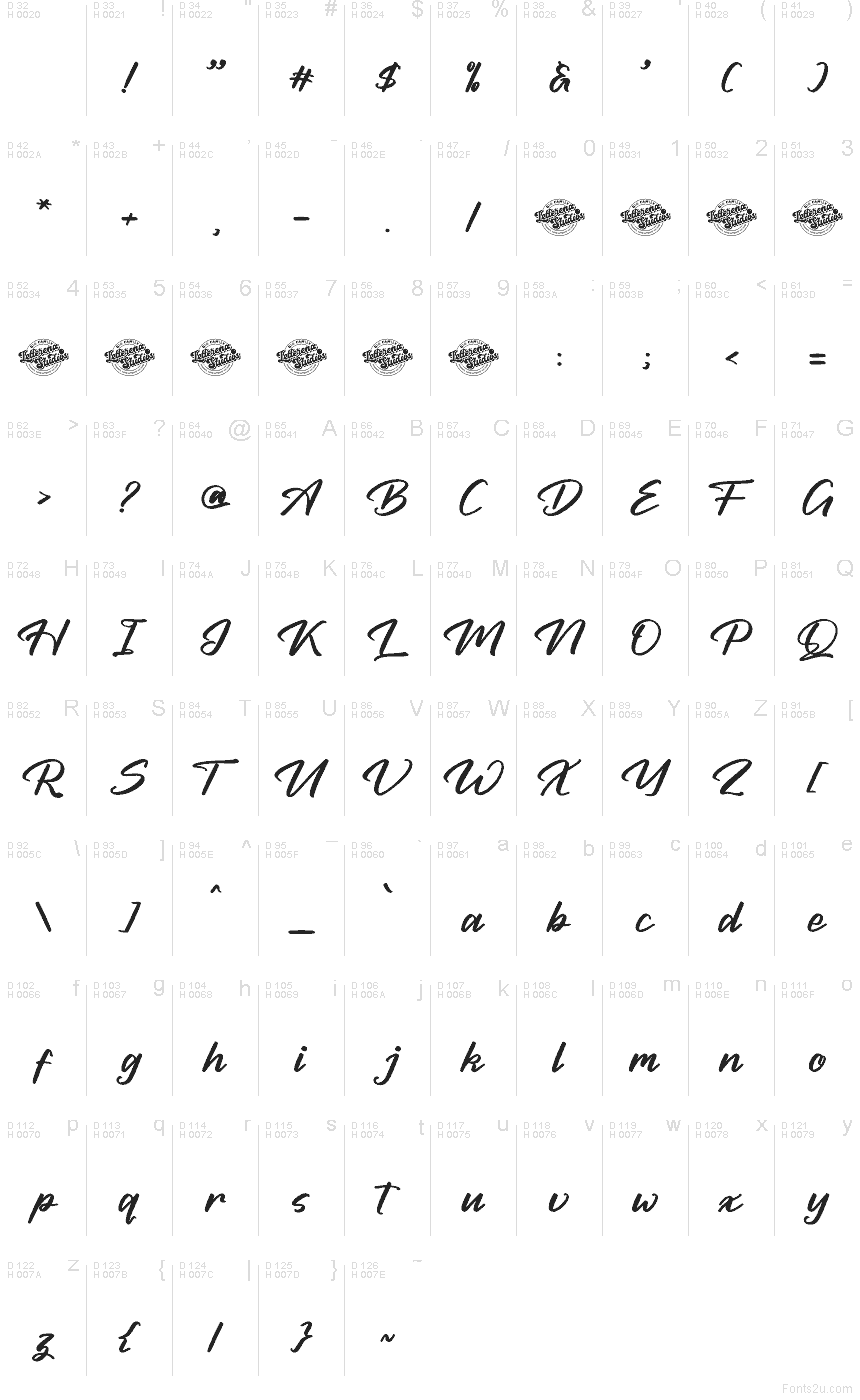
Bolinker Quantum font by Letterena Studios is a free calligraphy font that flows like fresh ink from a smooth brush pen. Its sweeping curves, slightly compressed forms, and confident rhythm give it the feel of a stylish handwritten signature—polished, but still personal. The strokes are lush and inky, with gentle pressure changes that add a sense of movement and warmth to every word.
Using Bolinker Quantum, your text instantly feels branded and bespoke, which makes this free font a natural fit for logos, signatures, wedding invitations, product packaging, social media graphics, and boutique signage. It shines when set large so the loops and tails can breathe; pair this typeface with a clean sans serif for body text to keep everything readable and balanced.